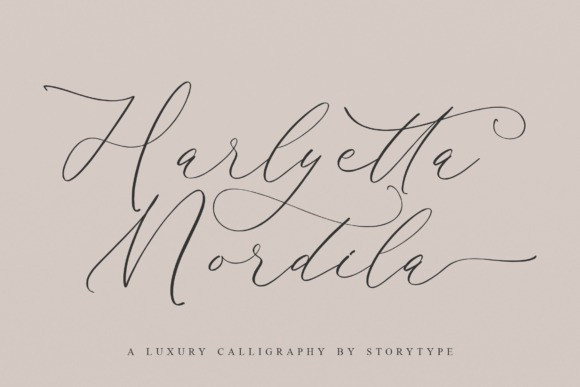
Harlyetta Mordila Font
Proudly present Harlyetta Mordila – Luxury Calligraphy , created by Storytype,
A luxury script that has own unique style & modern look.